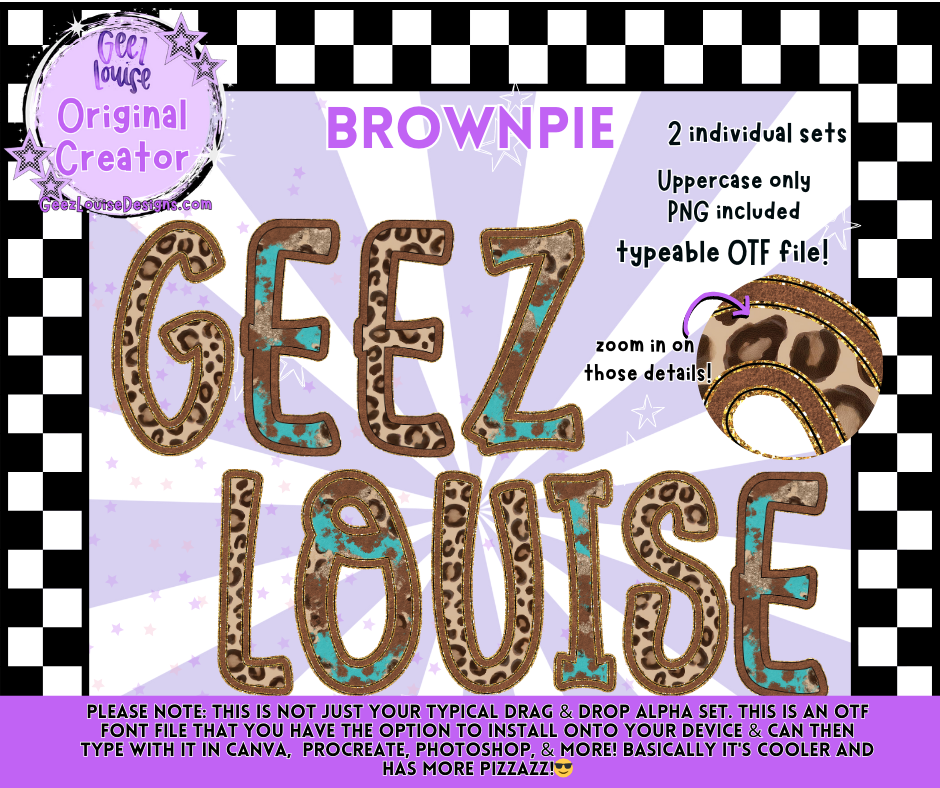
Brownpie Alpha Font Set | Leopard Print OTF & PNG Letters
🔥 Add bold style to your designs with the Brownpie Alpha Font Set! 🔥
This digital download includes 2 individual alpha sets featuring a chic brown + turquoise leopard print design. Perfect for making your projects pop with texture and flair!
Not just a standard alpha—this set comes with a fully functional font file for easy typing.